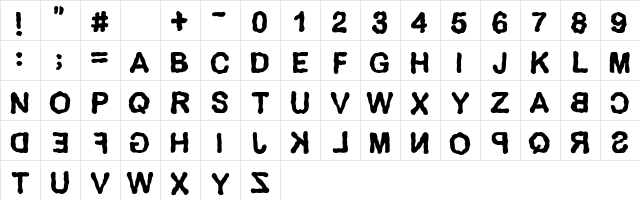
Delirium Regular Free Font
Delirium Regular
Design Context for Delirium
Delirium is a composed and adaptable typeface that performs quietly and consistently across a wide range of design contexts.
Pro Tip: Use Delirium in both headline and body roles to test its range before committing to a single application.